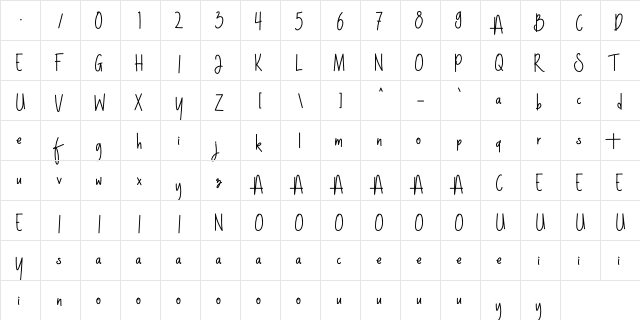
NightWork Regular
Design Context for NightWork Typeface
NightWork is a composed and adaptable typeface that performs quietly and consistently across a wide range of design contexts.